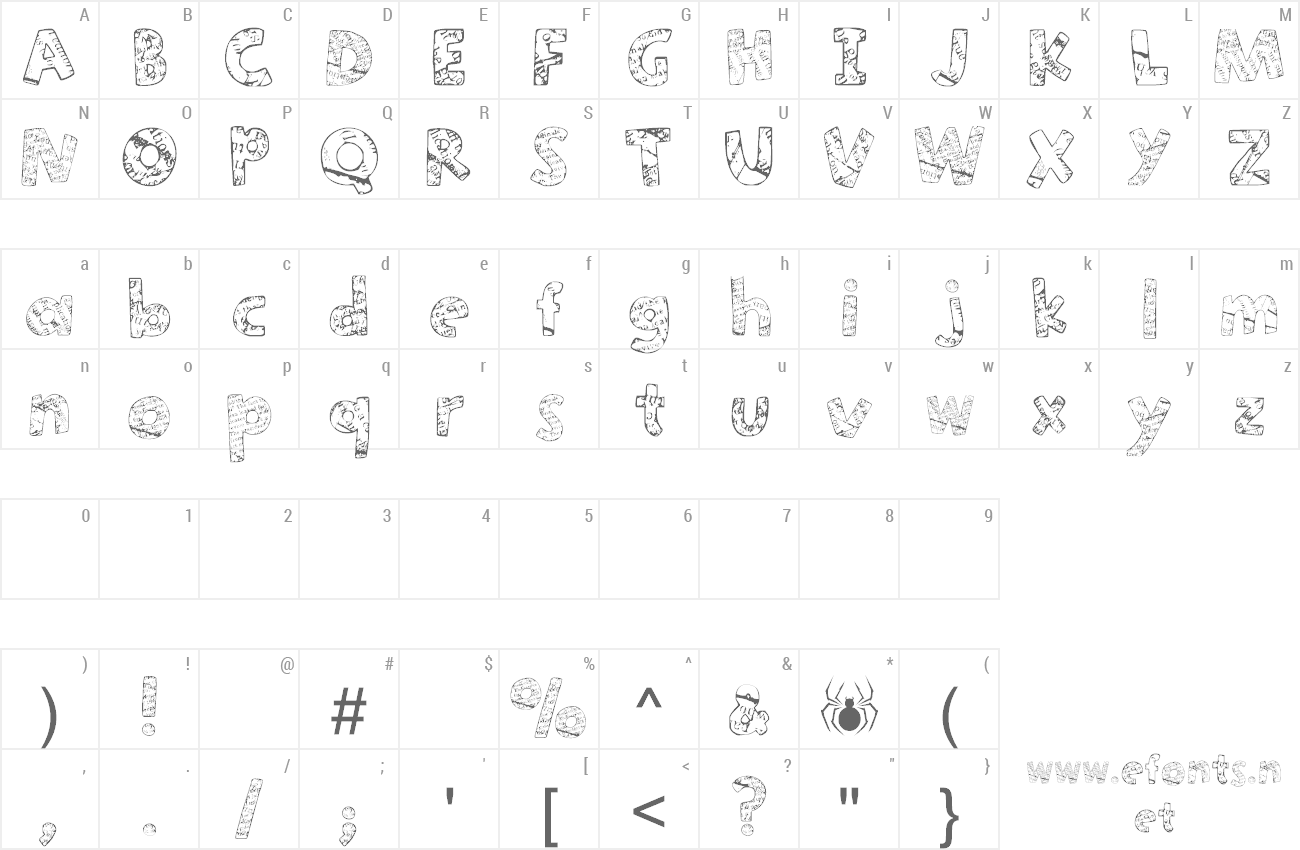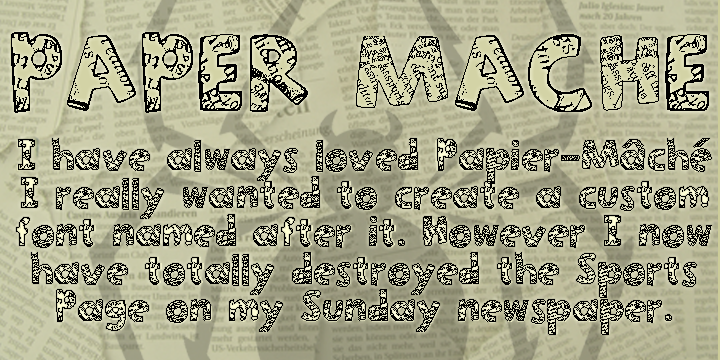
I had this idea a few weeks back but I have only just got around to attempting it I have always loved Papier-Mâché I really wanted to create a custom font named after it. However I now have totally destroyed the Sports Page on my Sunday newspaper. For the fully kerned OTF embeddable commercial version of this font please visit my Etsy Store @ http://etsy.me/2qlmXQN |